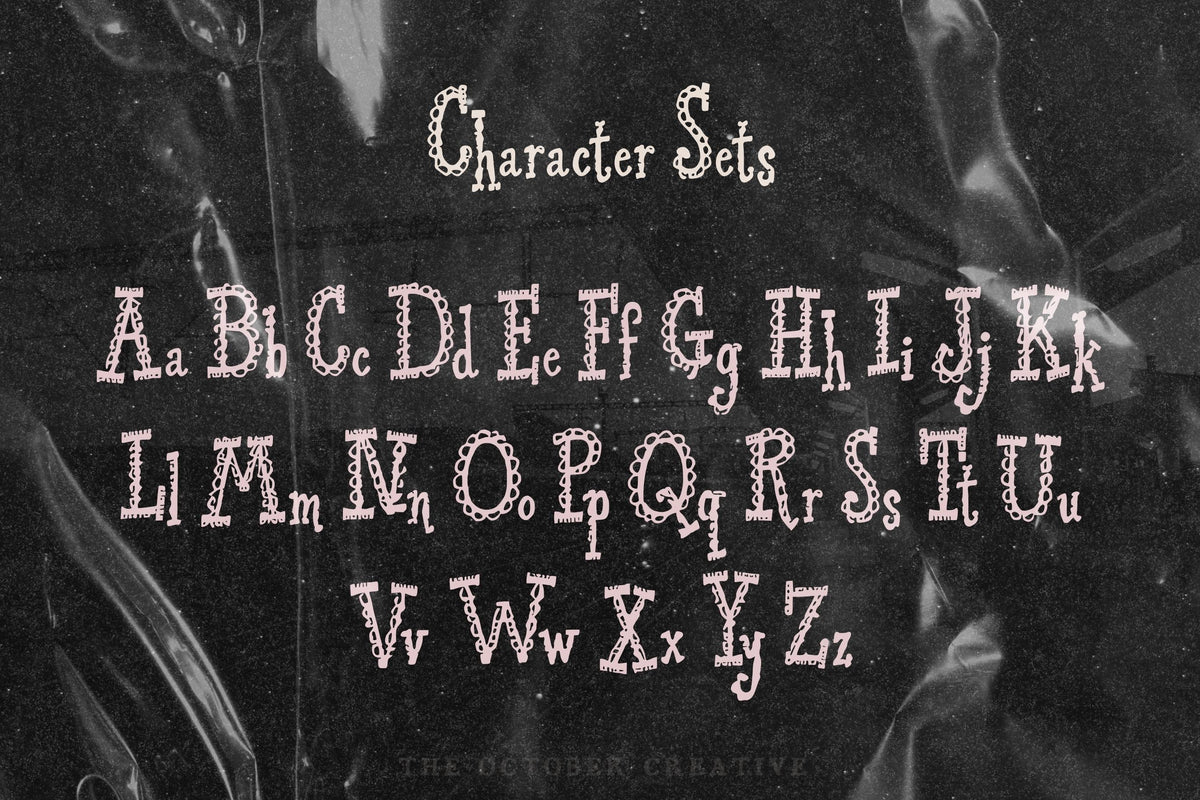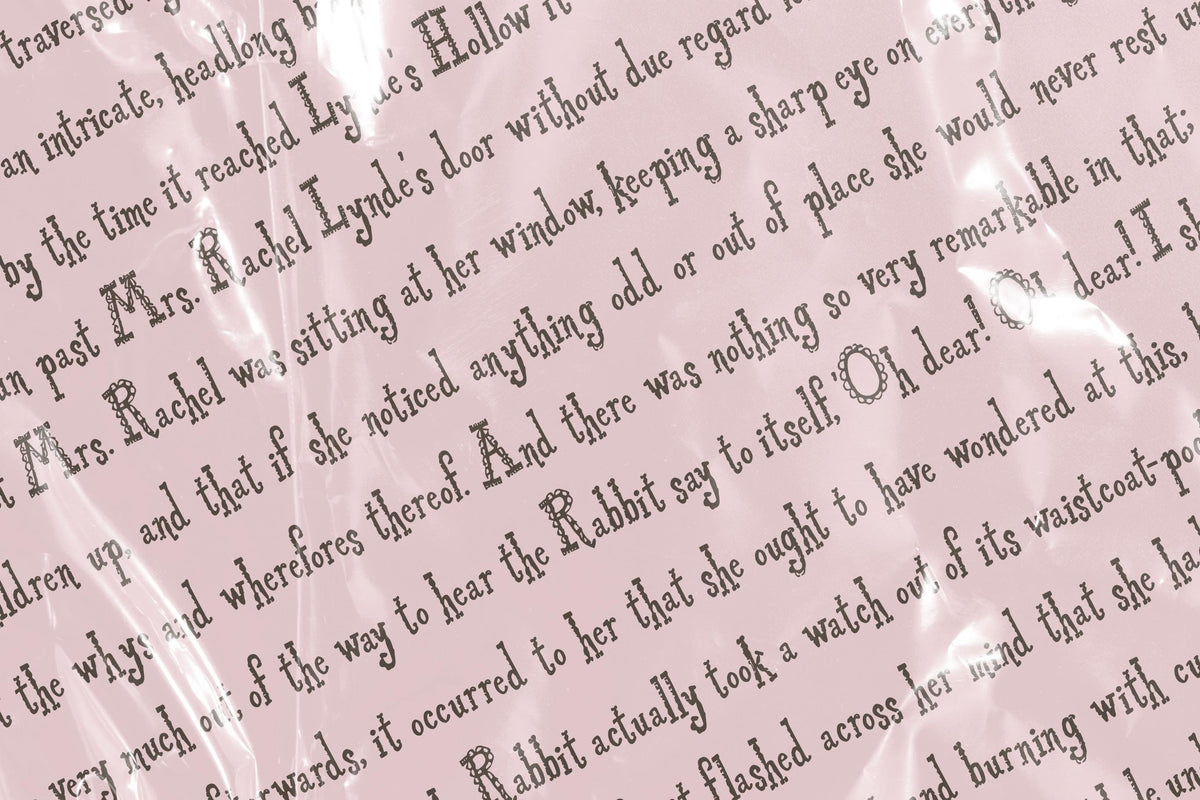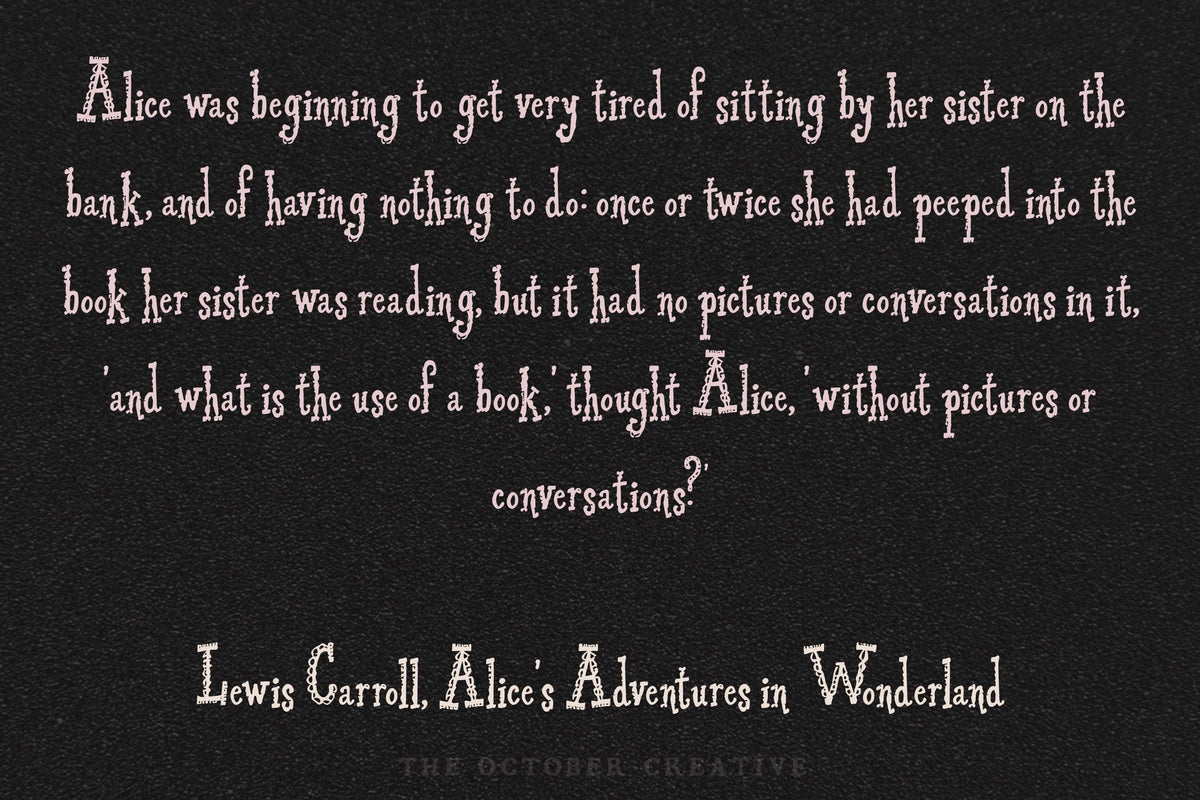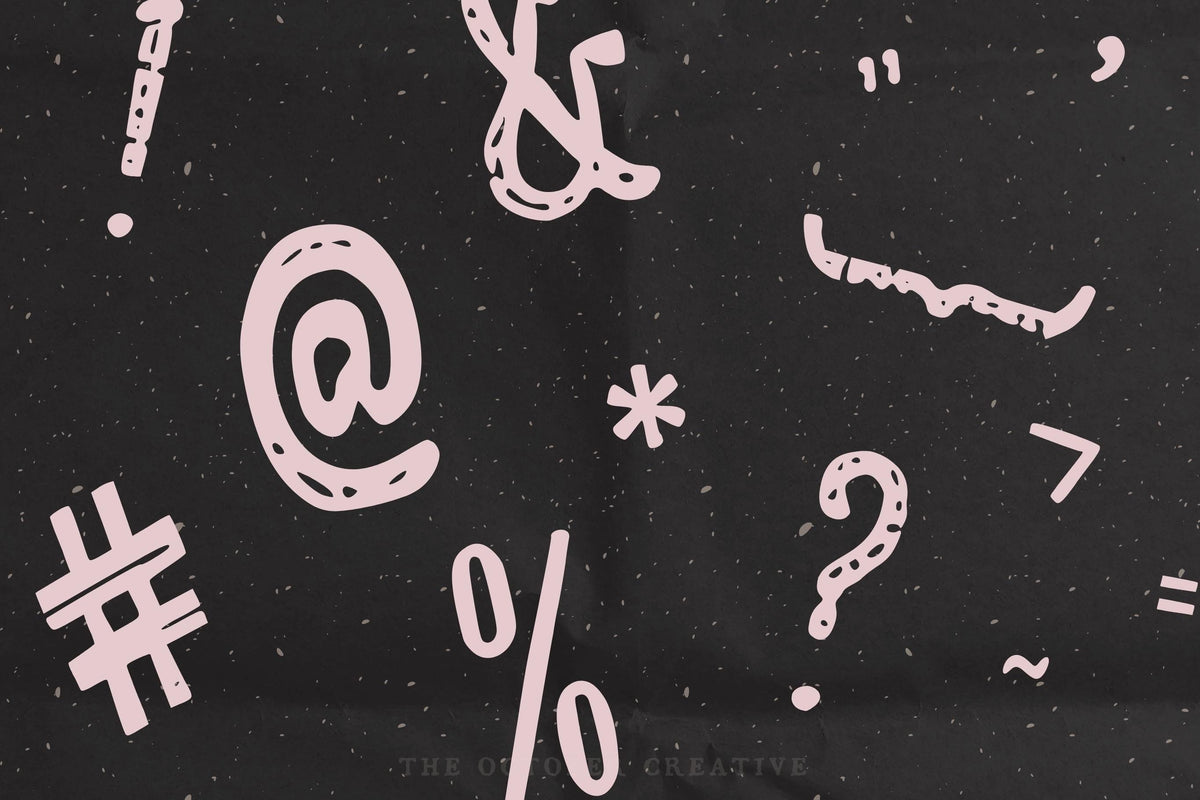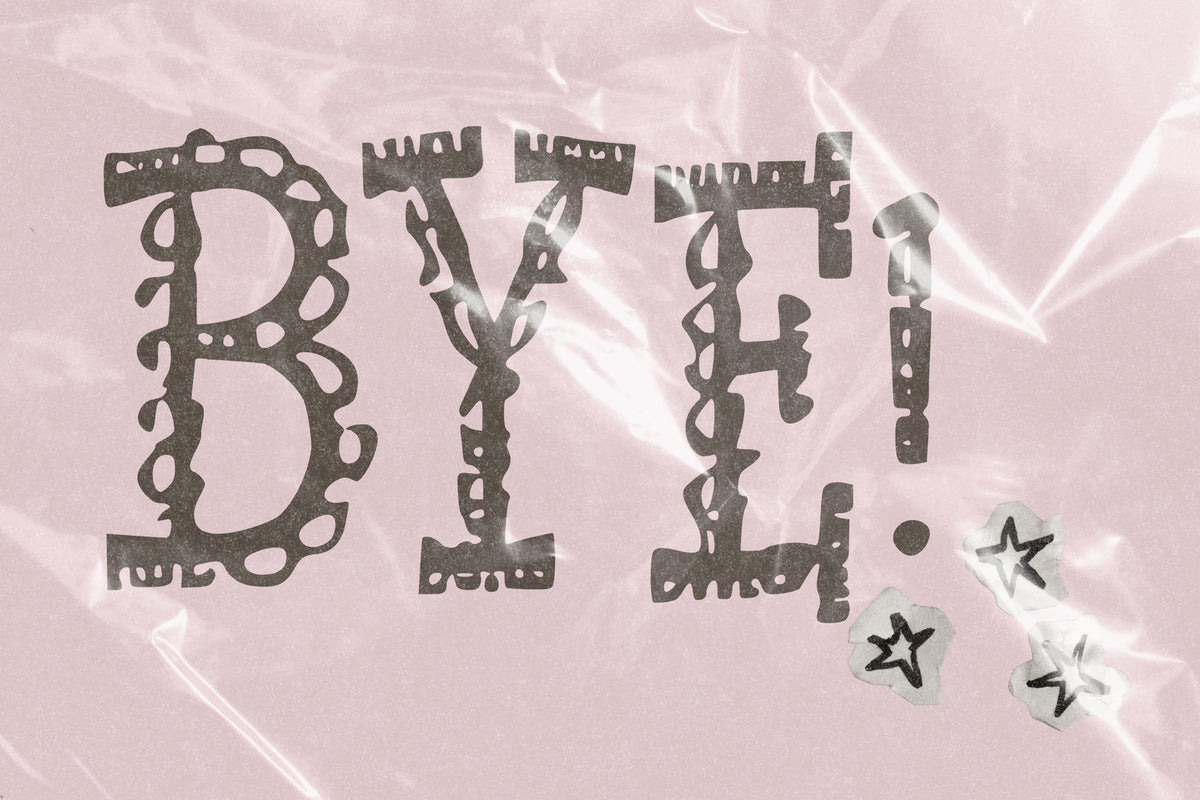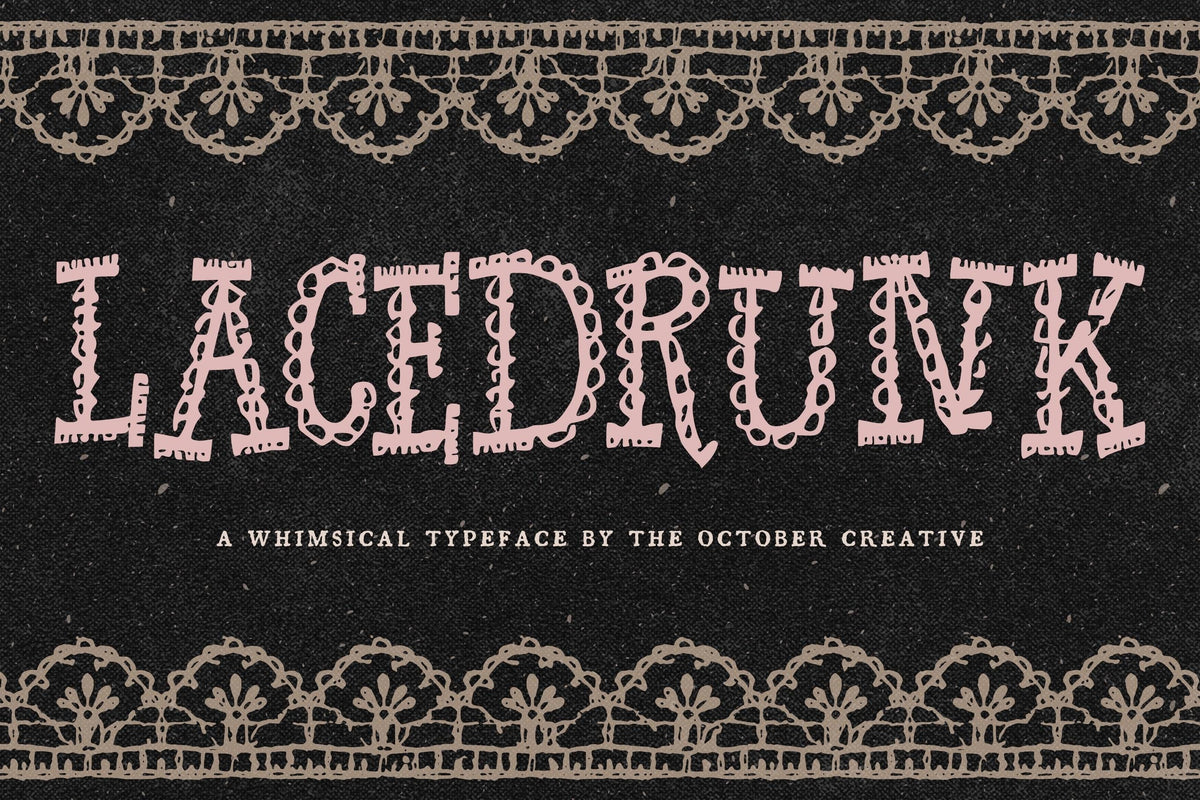
Lacedrunk Font
Lacedrunk is a decorative serif font with lace, scallop, and dot patterns inside every letter. It's made for big, short words: bridal shower invitations, monograms, boutique-style labels, and headers.